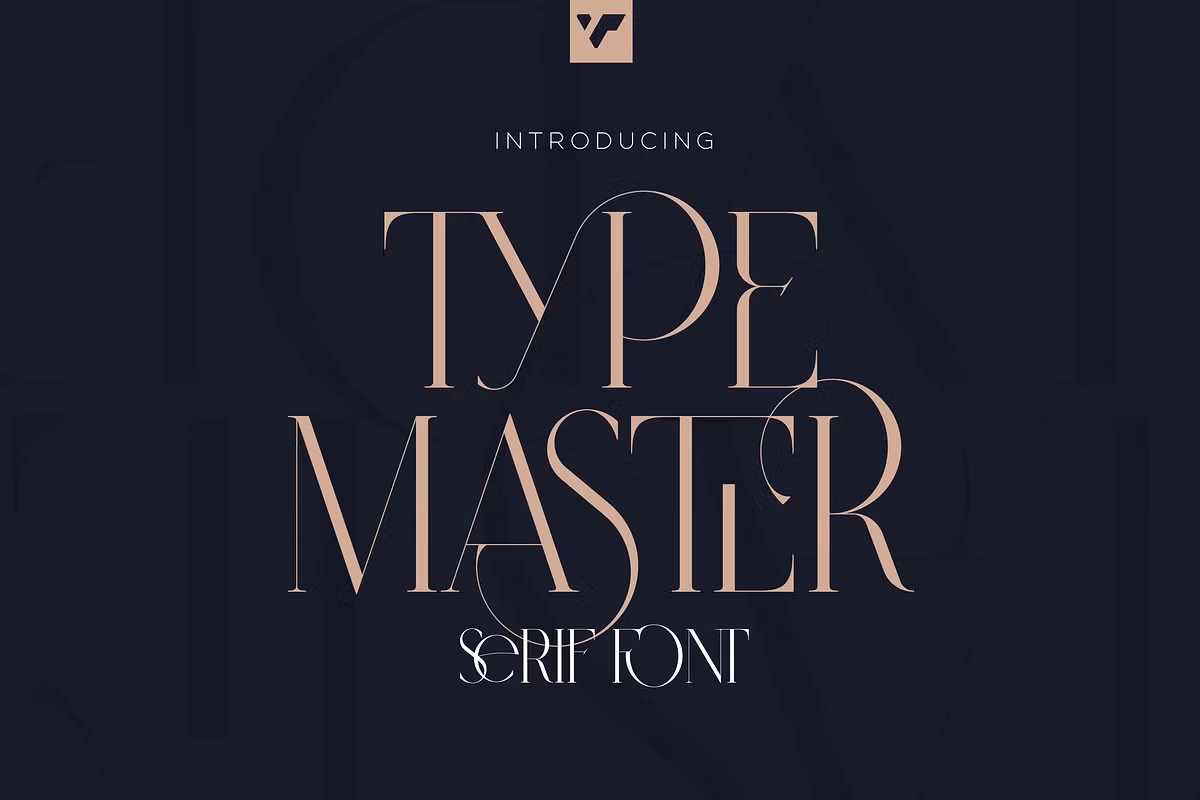
Type Master Serif Font Free Download is a classic yet contemporary serif typeface perfect for a wide range of creative projects. Whether you're designing elegant branding materials, stylish editorial layouts, or sophisticated invitations, this font brings a touch of timeless charm and professional balance.
With its refined letterforms and distinctive personality, Type Master Serif Font Free Download offers exceptional versatility for both digital and print projects. Designers love how it enhances readability while adding a sense of heritage and elegance to their work. If you're looking for a typeface that combines tradition with modern appeal, this font is a must-try. Don’t miss your chance to explore its features and see how it can elevate your designs before committing to a license.